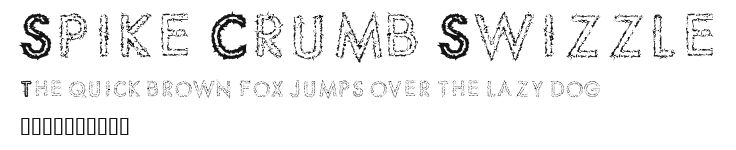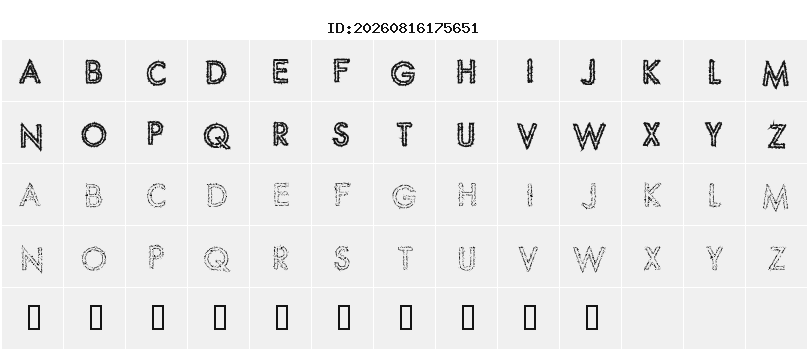
• Font Name: Spike Crumb Swizzle
• Full Font Name: Spike Crumb Swizzle
About Spike Crumb Swizzle.ttf
Spike Crumb Swizzle.ttf is a modern, elegant sans-serif font designed for ultimate readability and visual harmony. Perfect for branding, headlines, web design, and print materials.